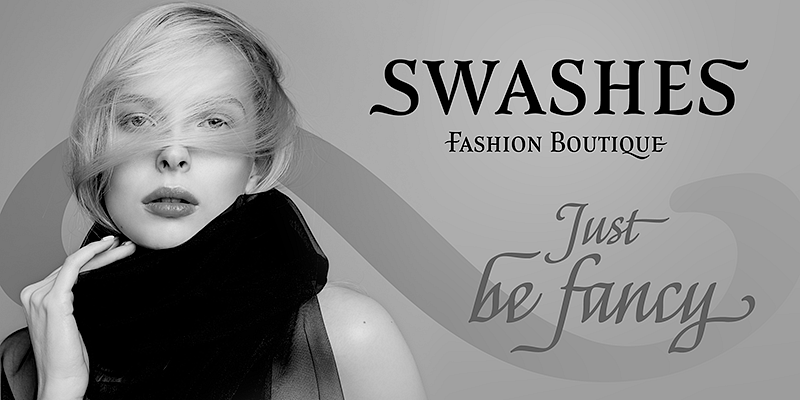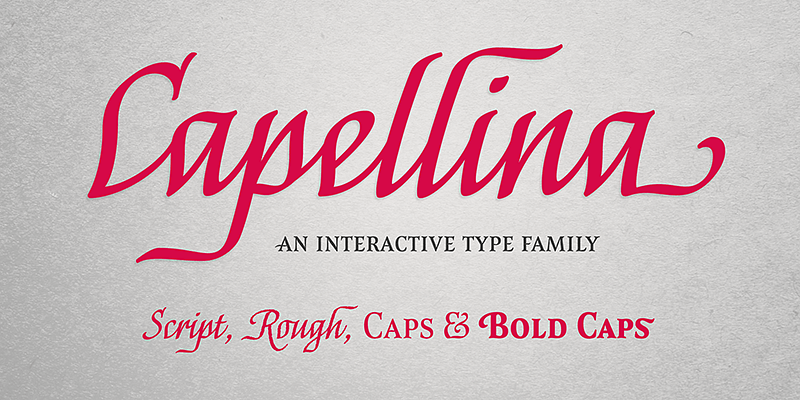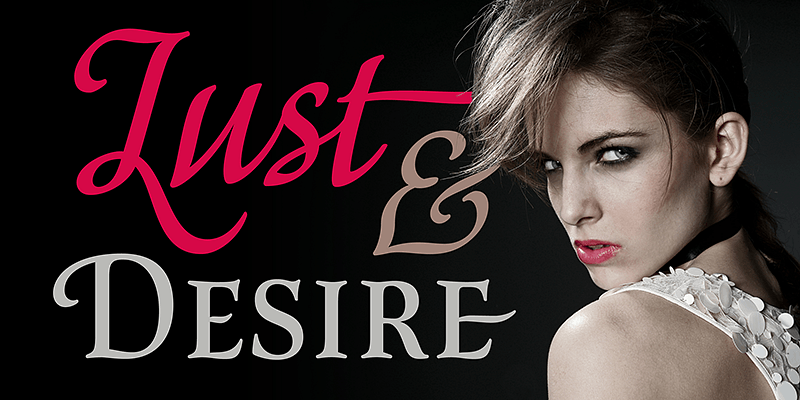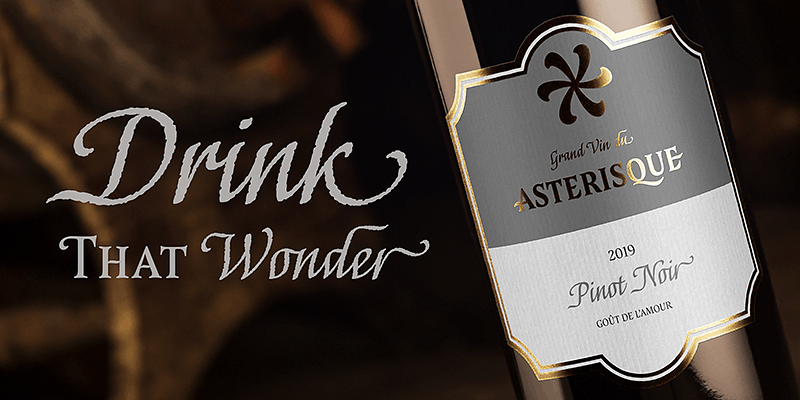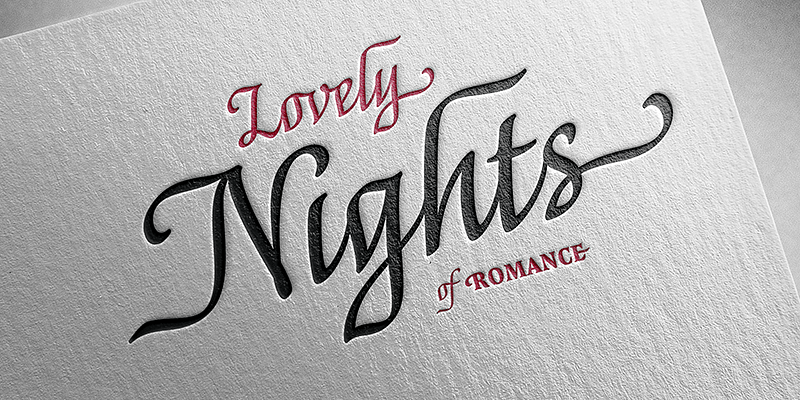
Capellina is a type family comprised of four styles – two script fonts and two small caps romans – built to work together in typographic compositions intended to catch the eye. They can be seen as some kind of lettering machines programmed to take advantage of swashes (specially at the beginning and at the end of text lines) and to avoid stroke collisions. Because of contextual alternates OpenType programming, the letters will change automatically while you’re writing. In Capellina Script and Capellina Rough you can also use the stylistic alternates / stylistic sets feature if you want to explore some extra letterforms.